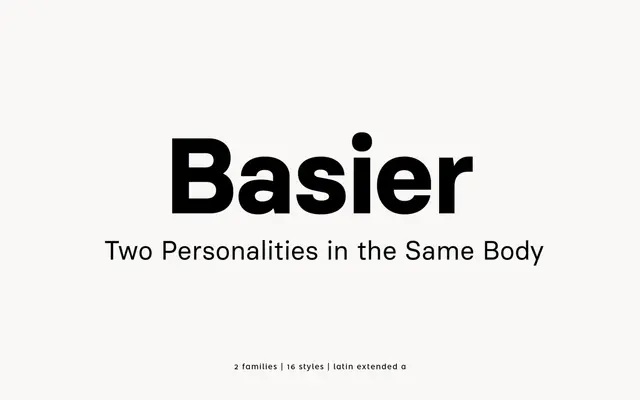
Basier
A neo-grotesque sans drawn in parallel Circle and Square cuts, with mono and narrow companions for a full system.
A neo-grotesque sans by atipo foundry built as two parallel cuts: Basier Circle, with softly rounded terminals, and Basier Square, with squared terminals. Each runs through Regular, Medium, SemiBold and Bold with matching italics, sharing metrics so the cuts can be mixed in the same layout. OpenType features include stylistic alternates and a full set of fractions, superiors and ordinals. The wider Basier system extends into Basier Mono and Basier Narrow, giving a coordinated toolkit for branding, interface and product work.
A neo-grotesque sans drawn in two parallel cuts: Basier Circle with rounded terminals and Basier Square with squared terminals. Both run from Regular to Bold with italics, sharing the same metrics so they can be mixed in the same layout.